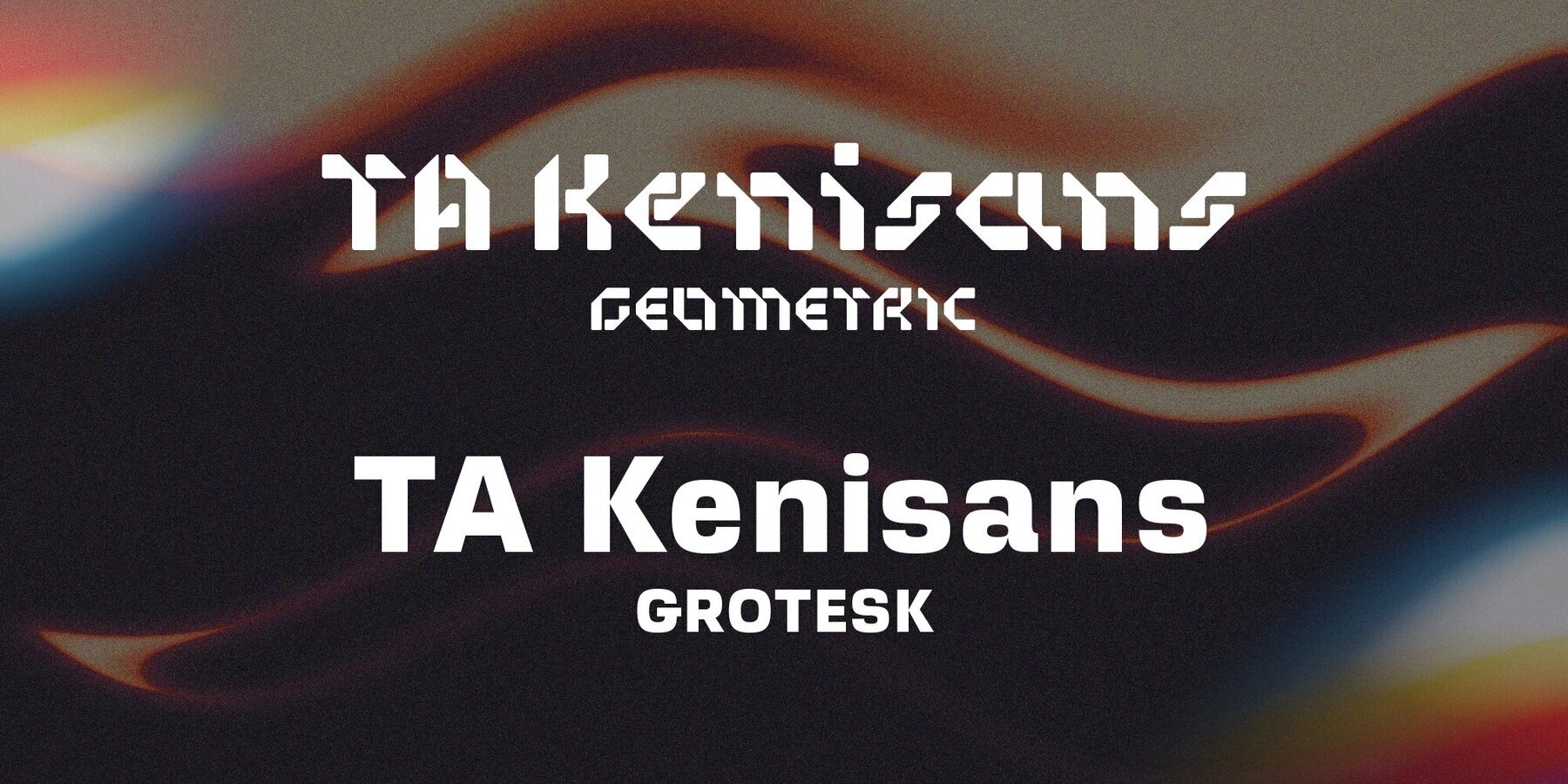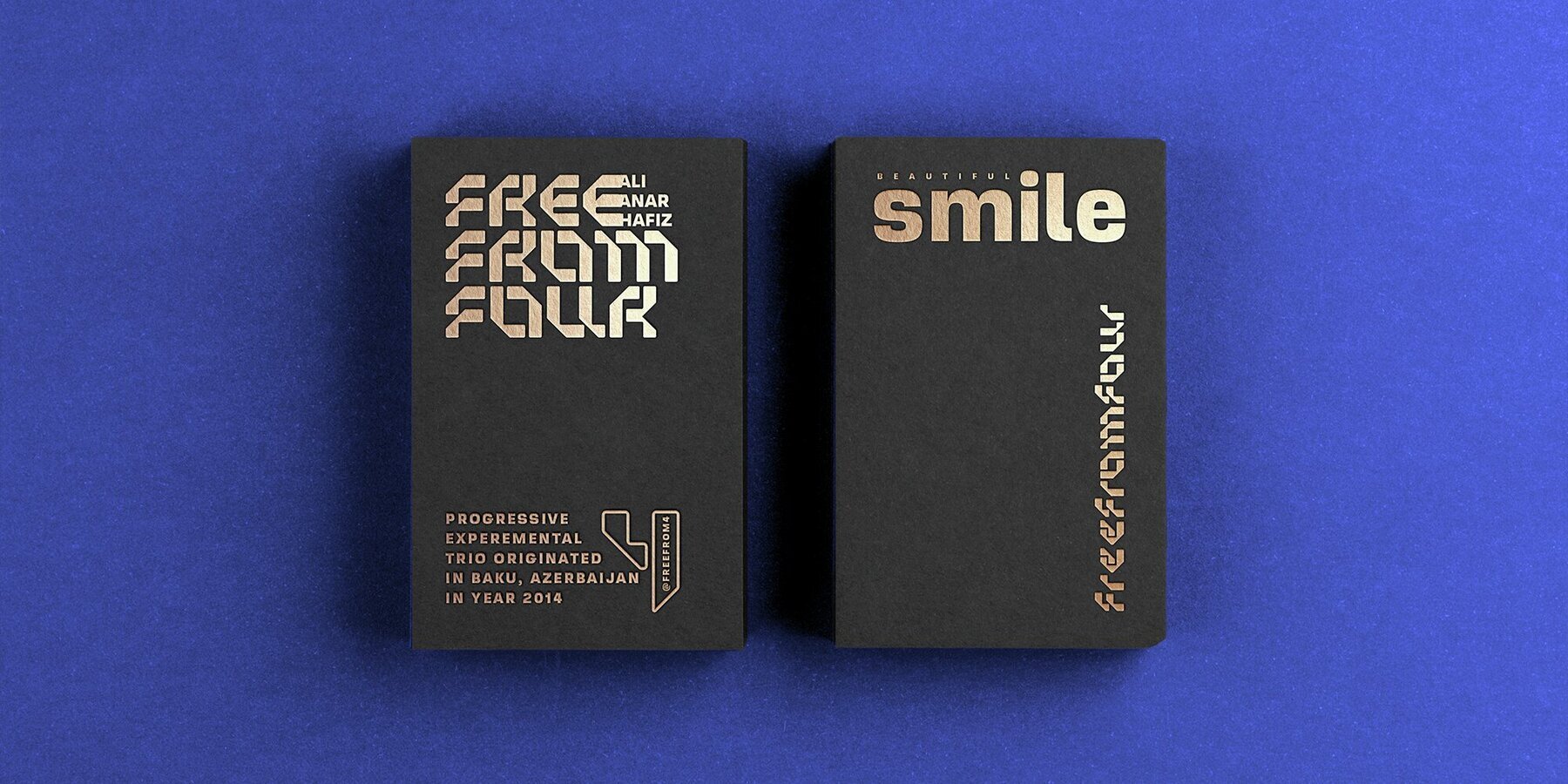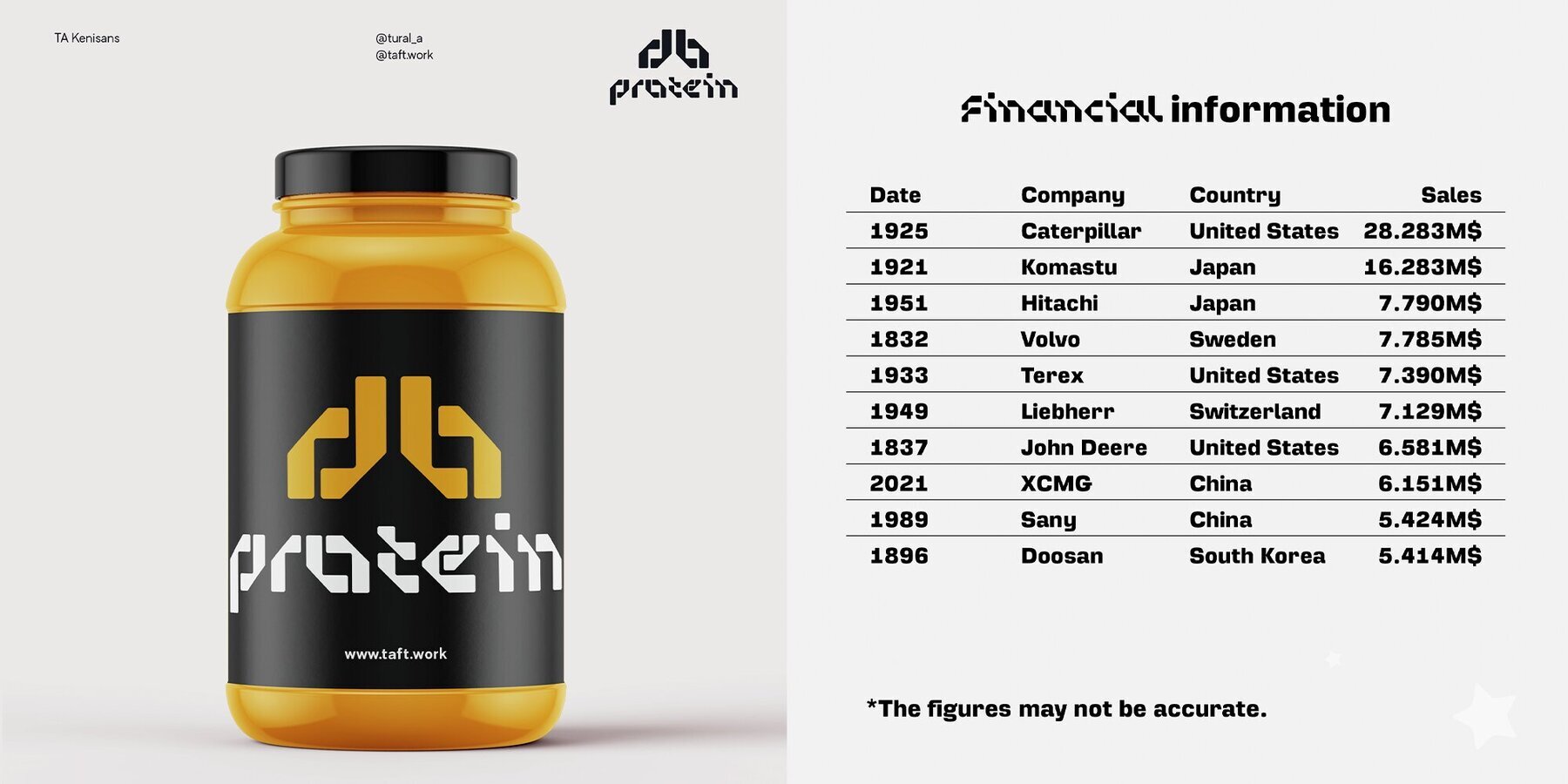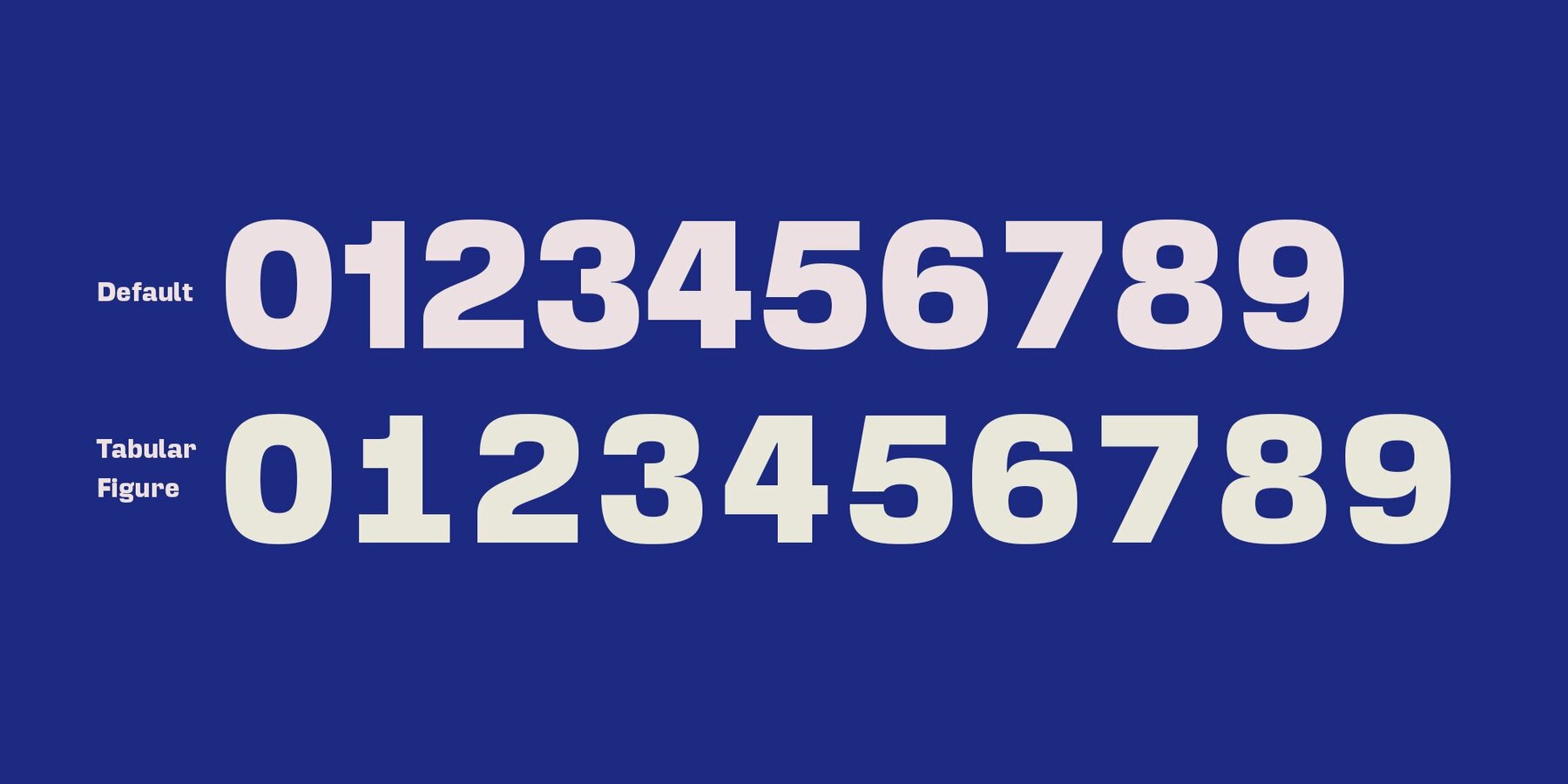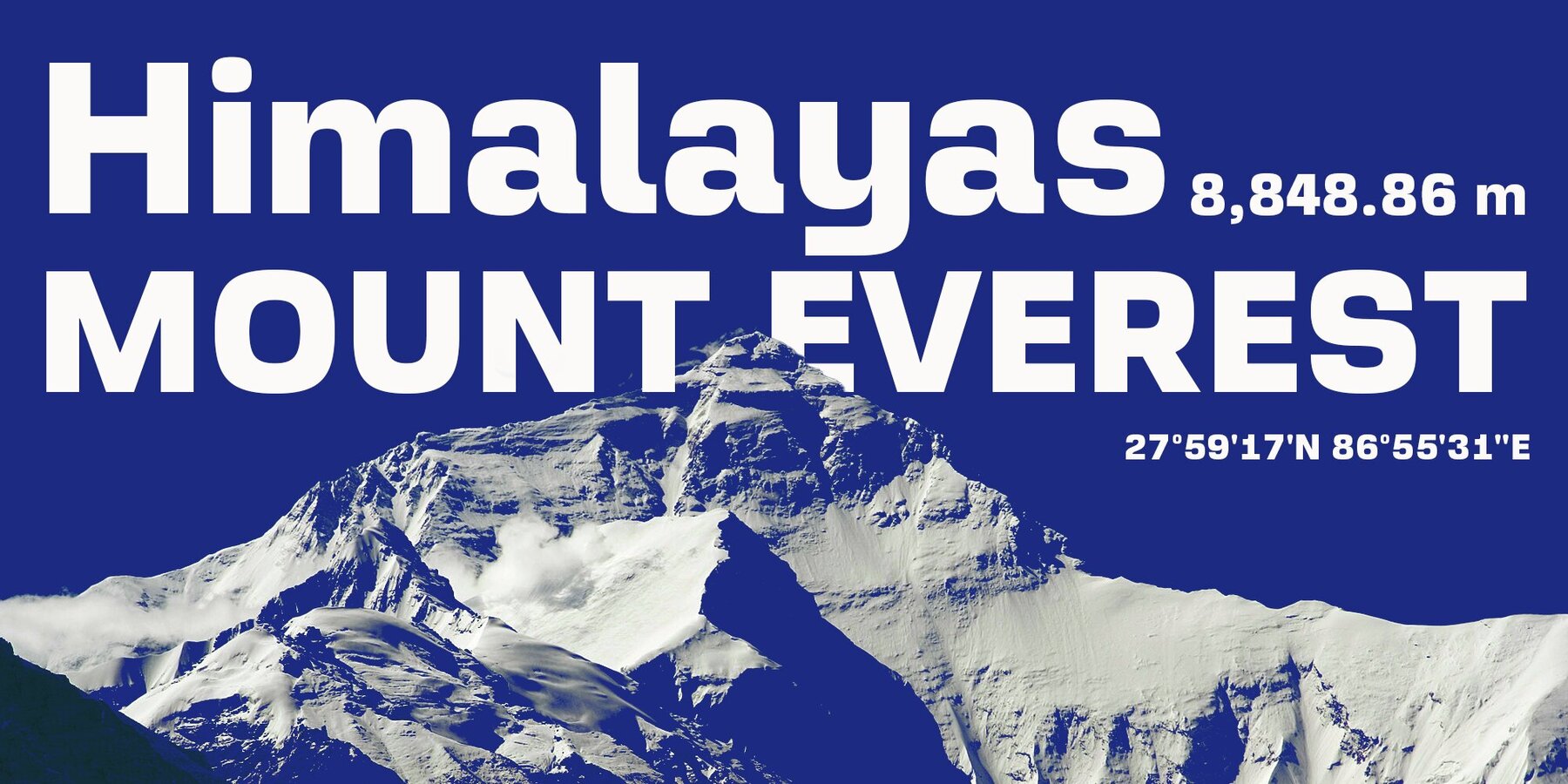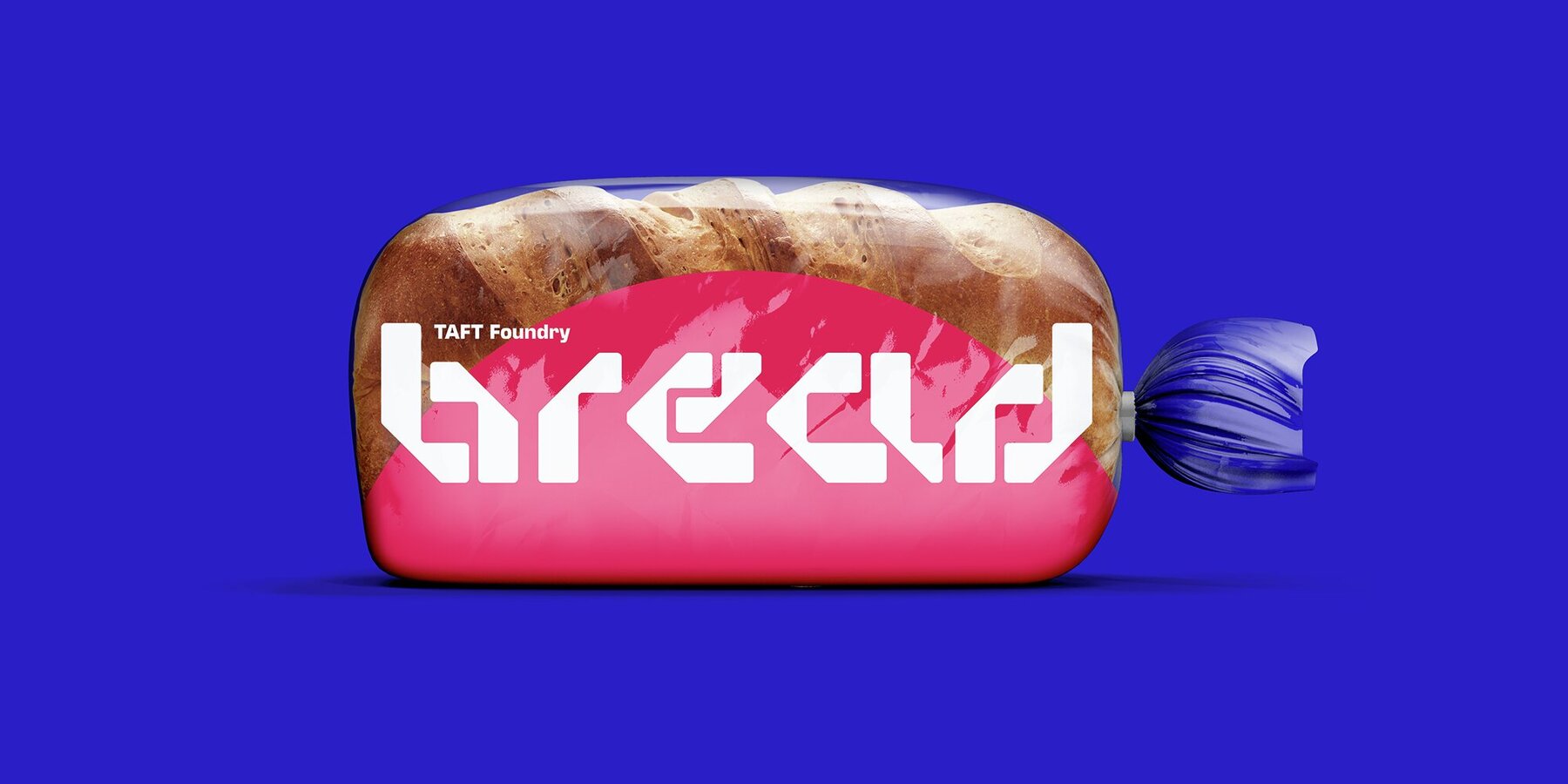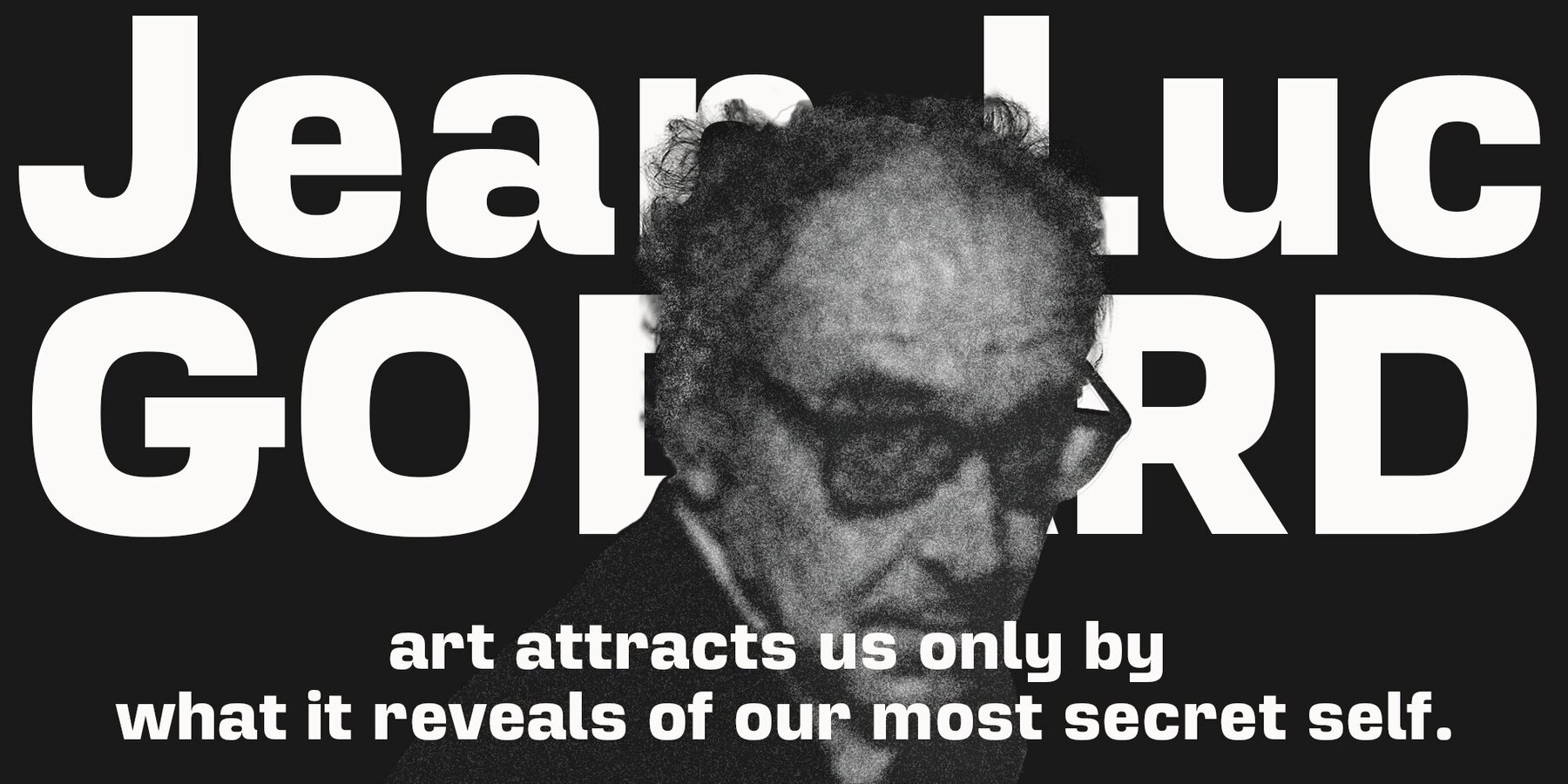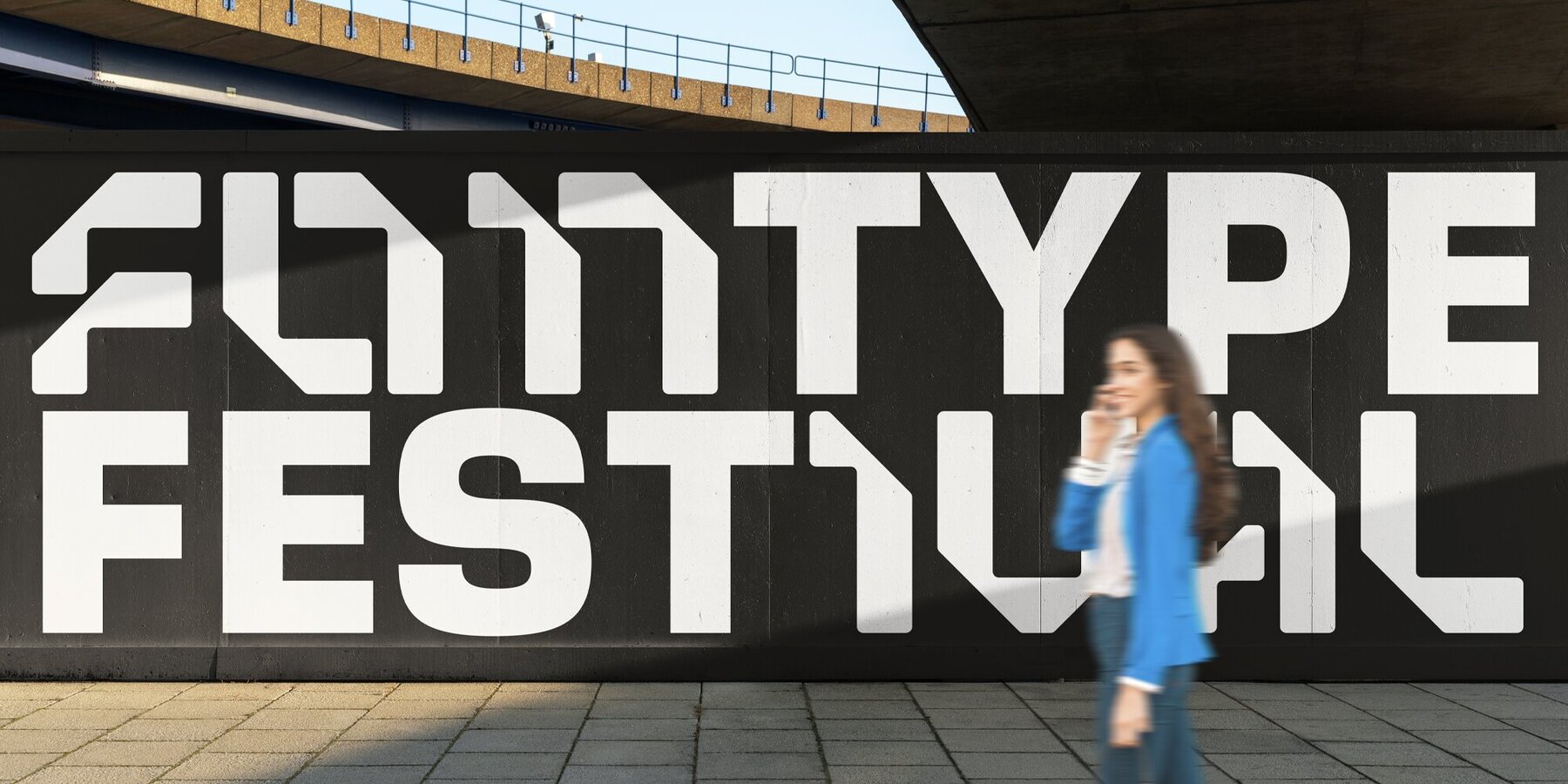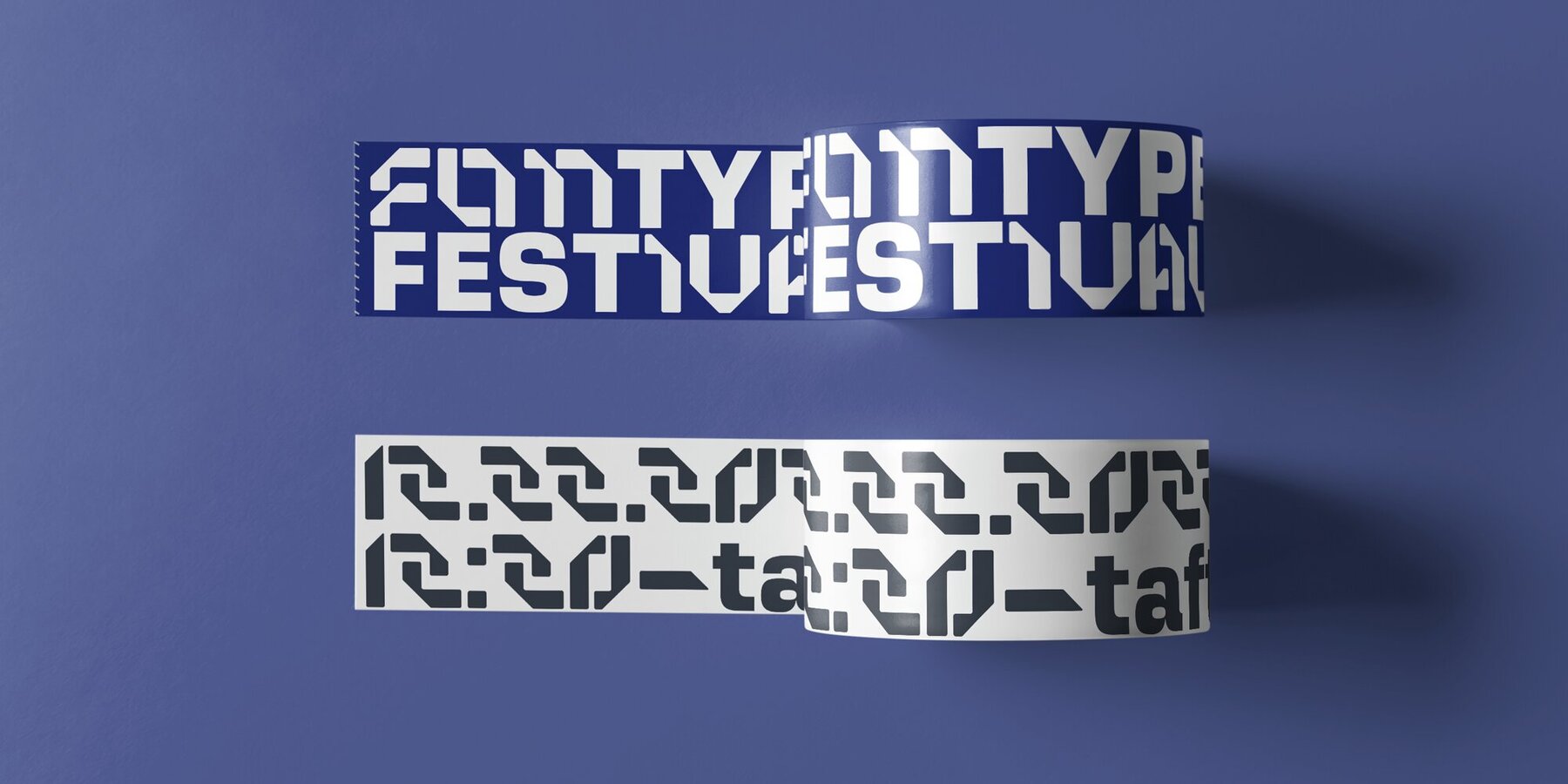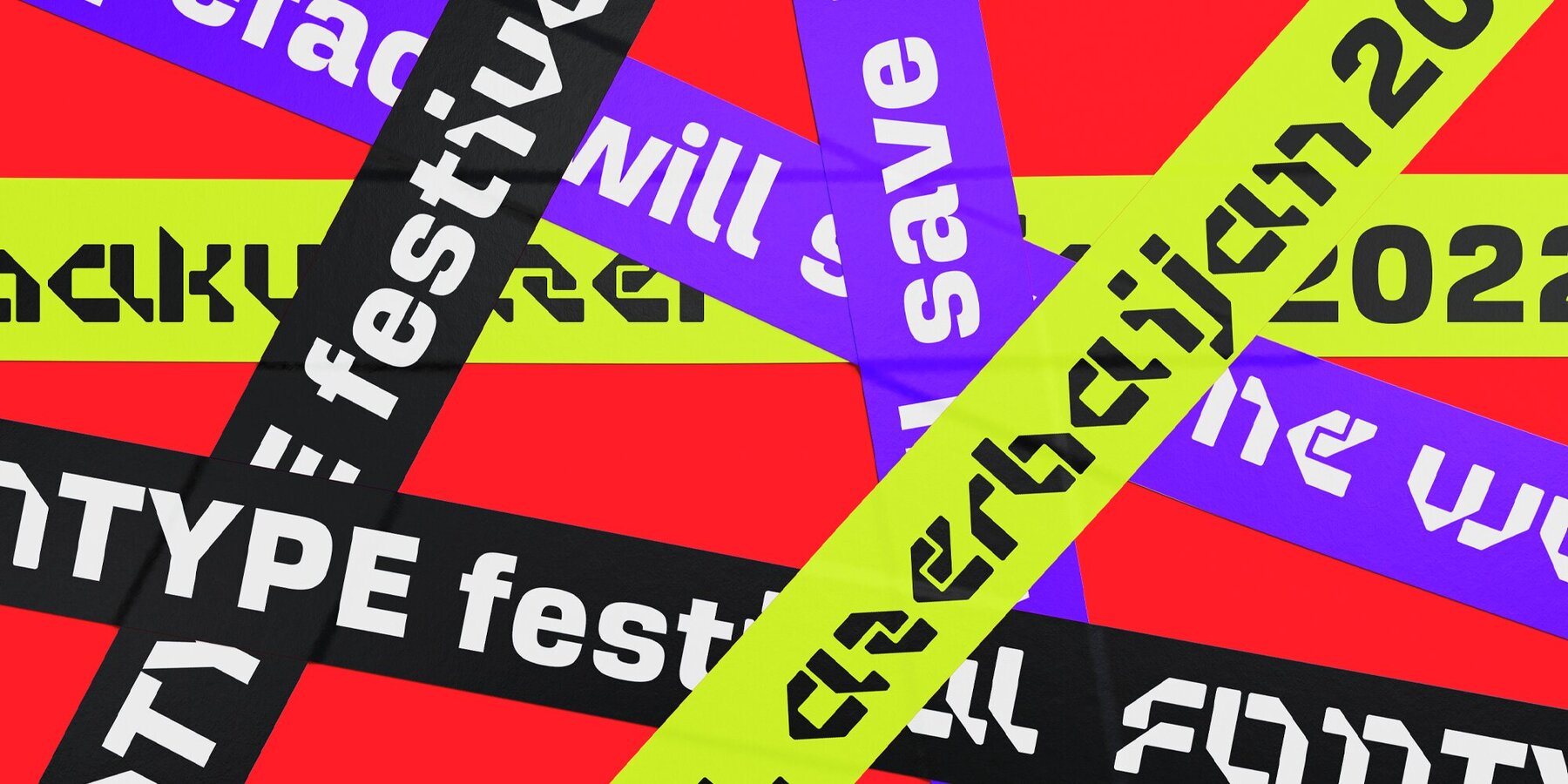
TA Kenisans Font
TA Kenisans Geometric
TA Kenisans Grotesk
TA Kenisans is a combination of two fonts. You can create very good works with Geometric and Grotesque style. This typeface also equipped with useful OpenType features such as Ordinal, Superior, Stylistic Alternates, Proportional Figure, Tabular Figure, Fraction, Numerator & Denominator. Each font file covers Western & Eastern Europe Latin language, as well as other Latin based languages – over 200 languages supported! This is a new real multi-purpose typeface that will be perfect for logo, packaging, greeting cards, presentations, headlines, lettering, posters, branding, quotes, titles, magazines, headings, web layouts, mobile applications, art quote, typography, advertising, invitations, packaging design, books, book title, & nearly any other type of creative design you’re working on.